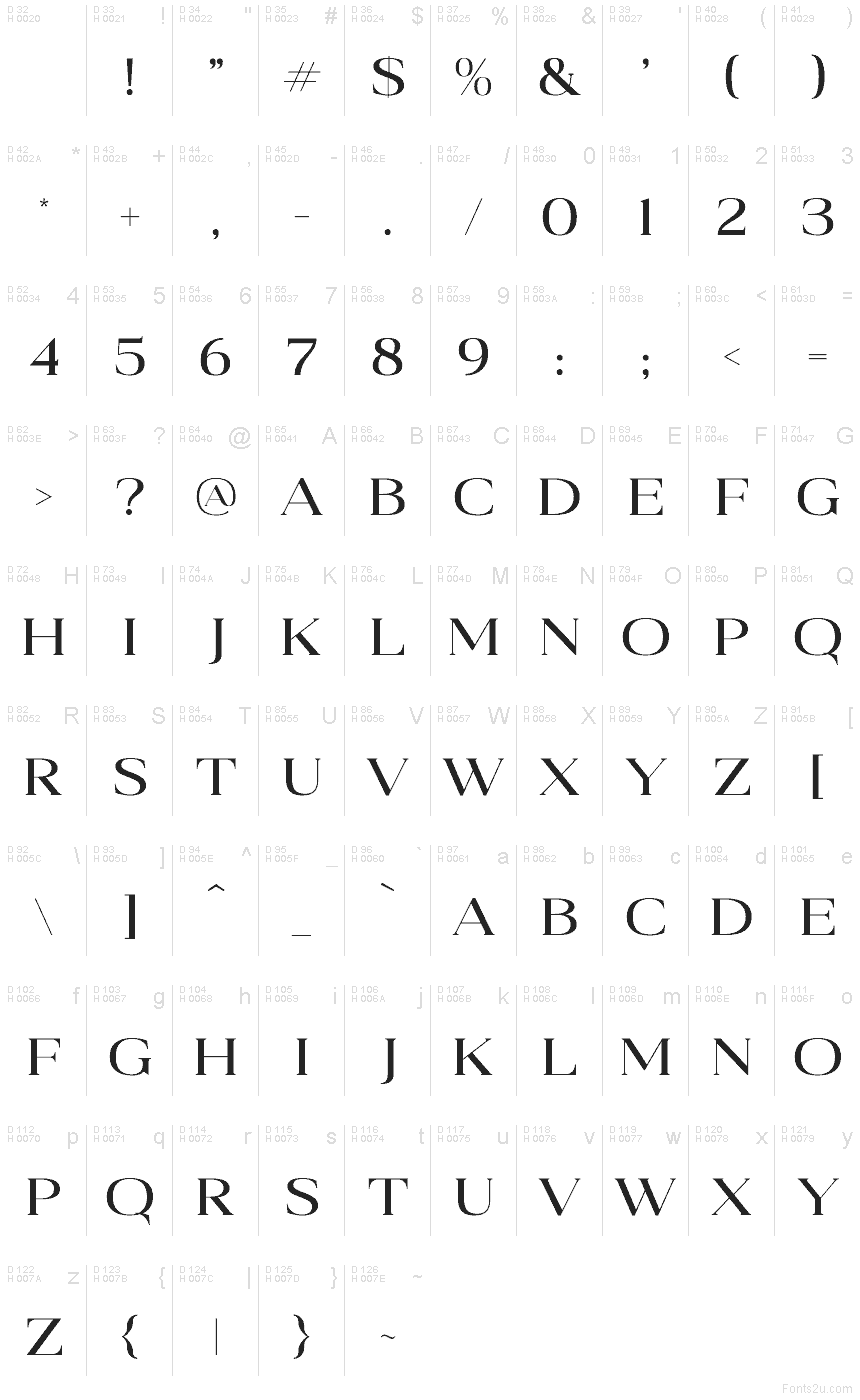
Baroon Casooal
Baroon Casooal font, a creation of Storytype Studio, embodies elegance and sophistication with its expanded serif style. With modern influences and a refined design, this free serif font captures a timeless appeal that effortlessly draws attention to the written words.
Its artistic essence can add character to fashion or interior design blogs. Use it in related magazines, product packaging labels, novels covers, artwork posters, restaurant menus or invitations for classy events. Other potential applications include album covers and visual identities such as logo designs.